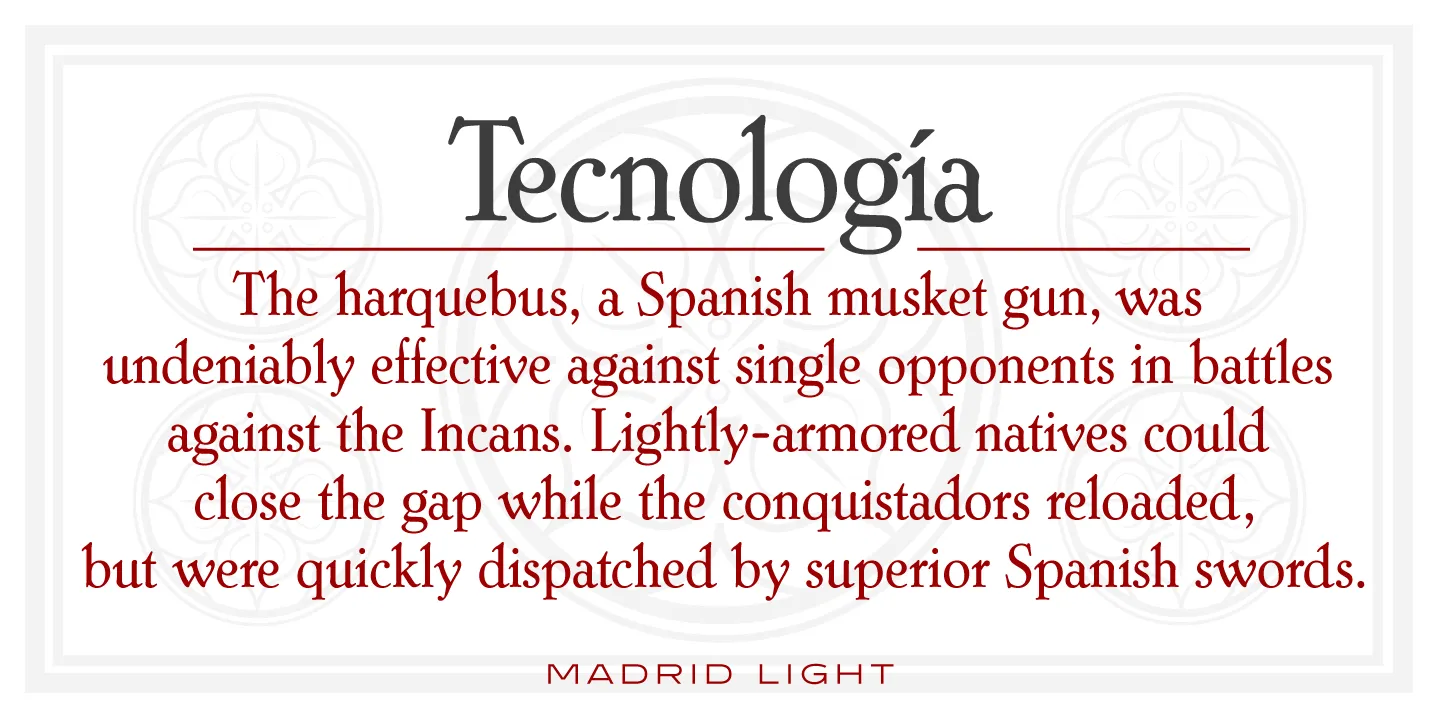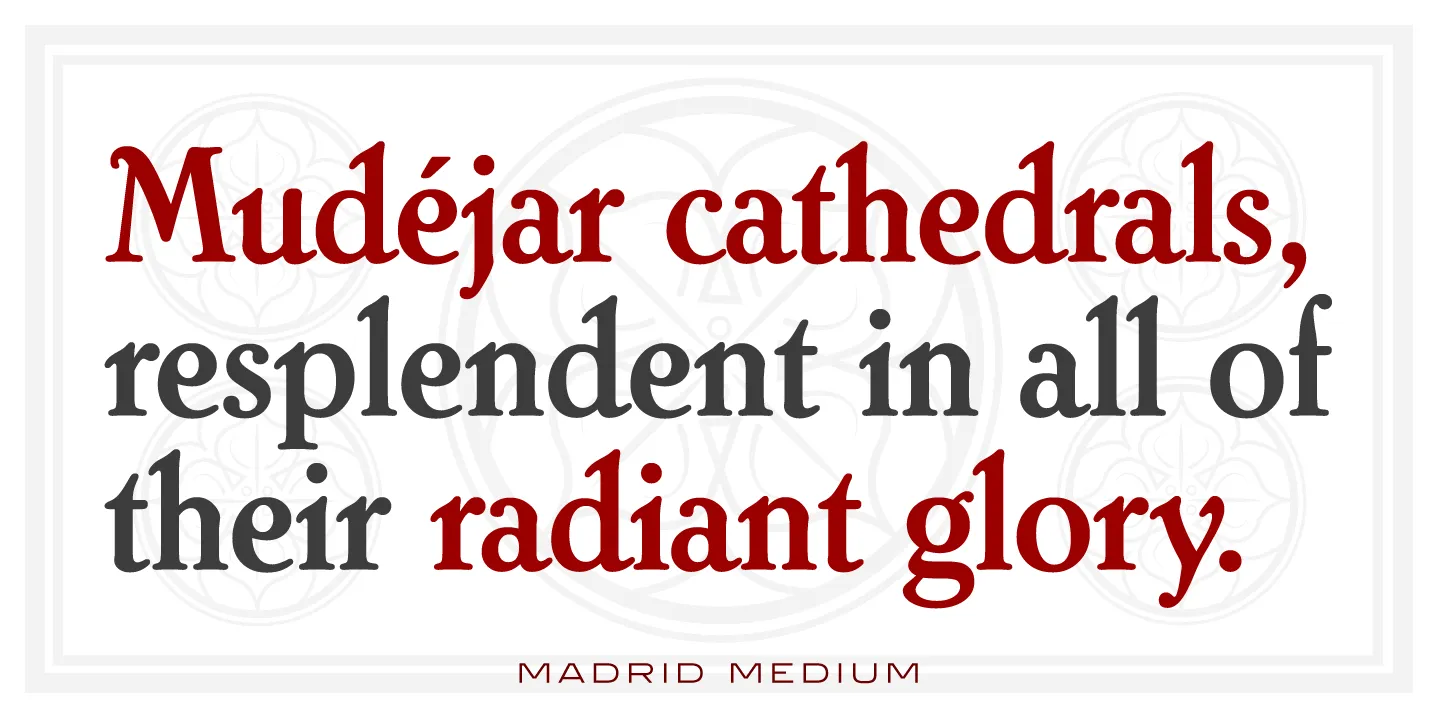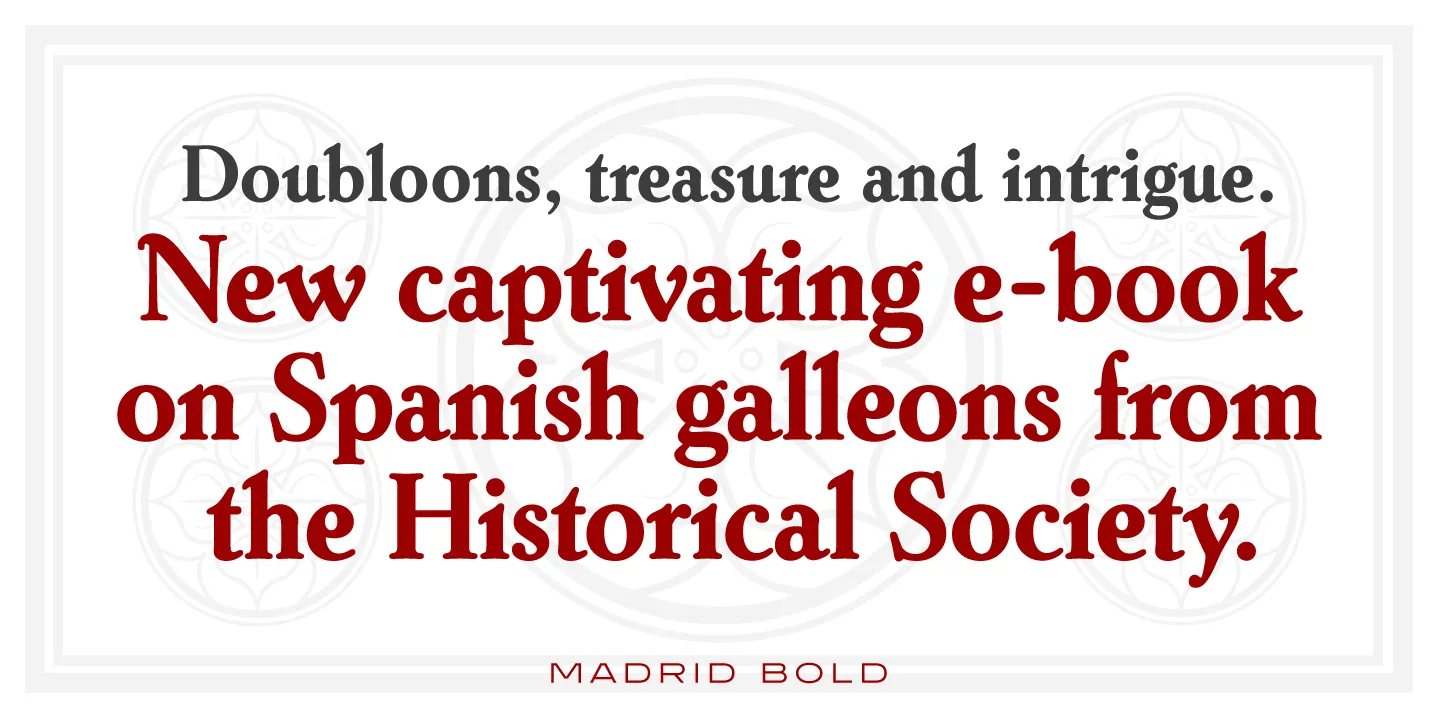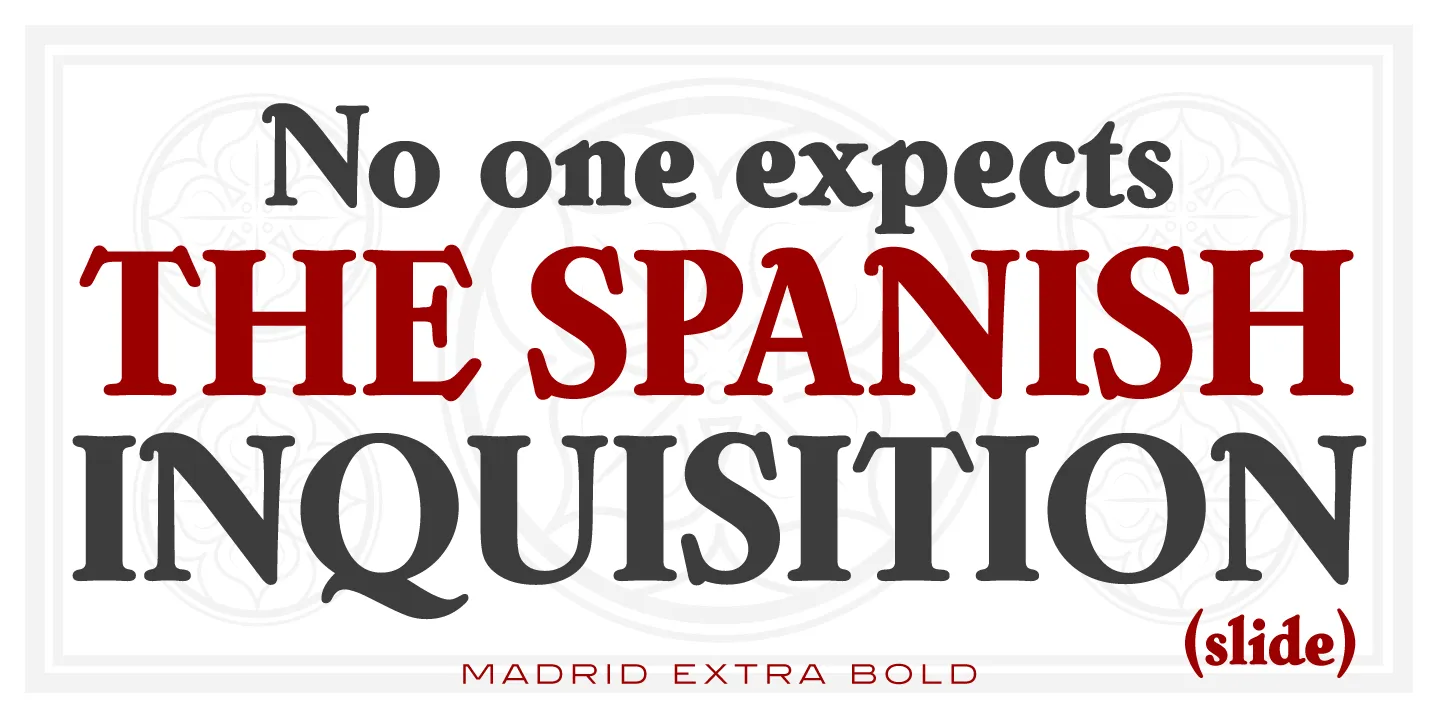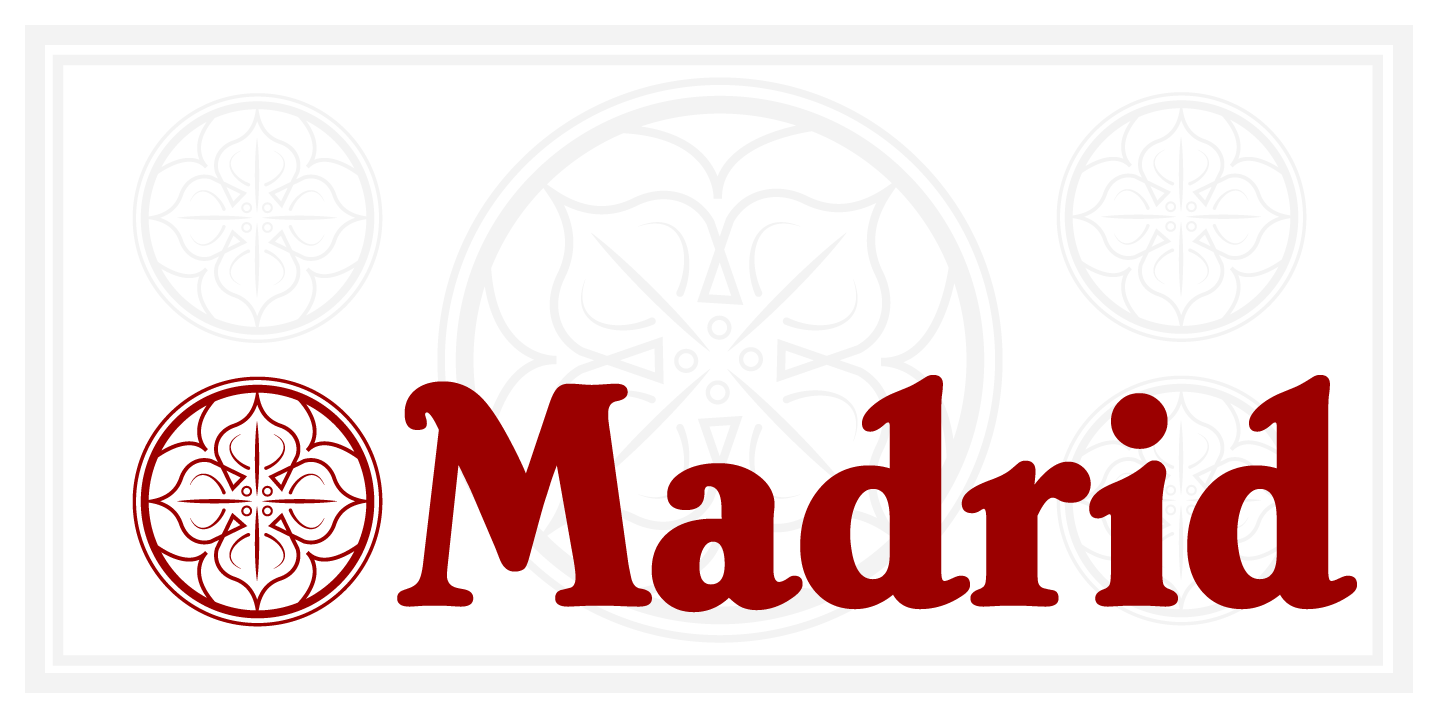
Madrid Font Family
Madrid is a calligraphic roman font family that was digitally engineered by Steve Jackaman (ITF) exclusively for the Red Rooster Collection in 1997. It was inspired by Carlos Winkow’s typeface called “Nacional,” which was designed in 1941 for his foundry of the same name. Two weights of Nacional existed, Clásico Nacional 1 and Clásico Nacional Negro, and Jackaman created intermediary Medium and Extra Bold weights for this all-new family. Like the Spanish capital it is named for, the Madrid typeface is theatrical and decorative. The serifs are steeply inclined, some upper-case letters have hooks, and the glyphs have elegant pen-drawn qualities. Madrid is sure to bring its fiery passion to any project!